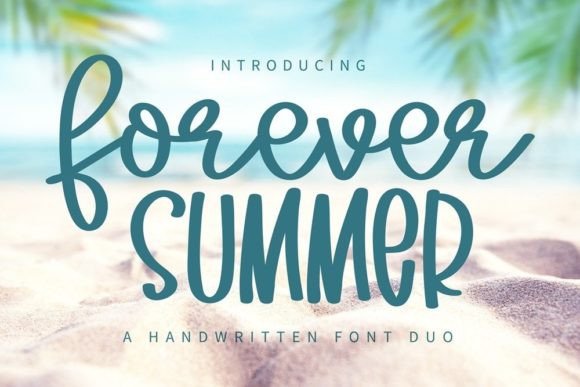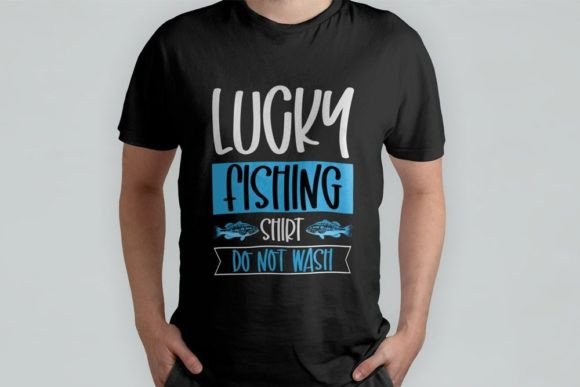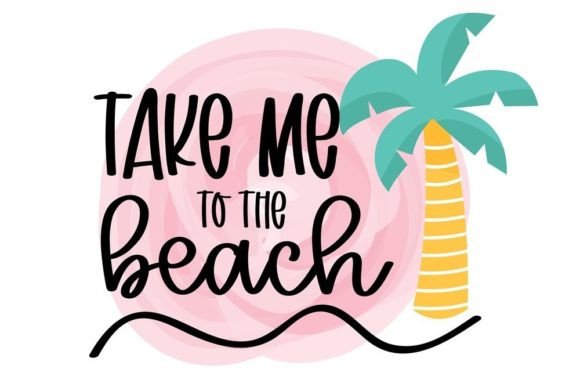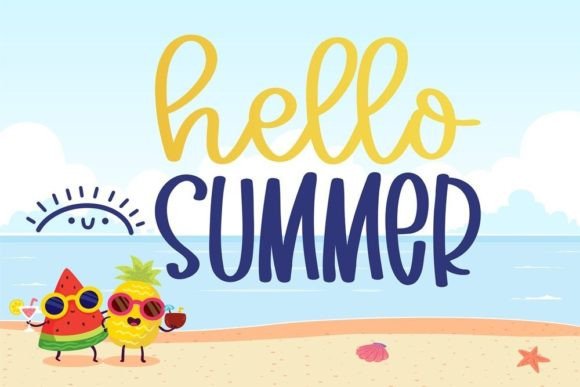
Forever Summer Font: Cute Handwritten Font for Cricut & DIY Projects
About the Forever Summer Font
The Forever Summer Font offers a perfect balance of form and function for your design needs. Forever Summer is a sweet and cute handwritten font duo. Fall in love with its incredibly versatile style and use it to create gorgeous wedding invitations, beautiful stationery art, eye-catching social media posts, and much more!
Forever Summer’s playful, yet elegant, style makes it ideal for projects requiring a touch of whimsy and sophistication. It excels in applications such as wedding stationery, branding for boutiques or cafes, and social media graphics. However, its handwritten nature makes it less suitable for large blocks of text or UI elements where readability is paramount.
Pairing Forever Summer with a clean sans-serif like Lato for body text or a more geometric sans-serif such as Montserrat for supporting elements creates a balanced and modern aesthetic. For a more traditional feel, a delicate serif font like Playfair Display offers a refined contrast.
Its core personality is best described as cheerful and romantic, making it perfect for brands aiming for a friendly and approachable image. Avoid using it for projects requiring a formal or strictly professional tone.
Forever Summer Font Usage Examples
Forever Summer Font Example